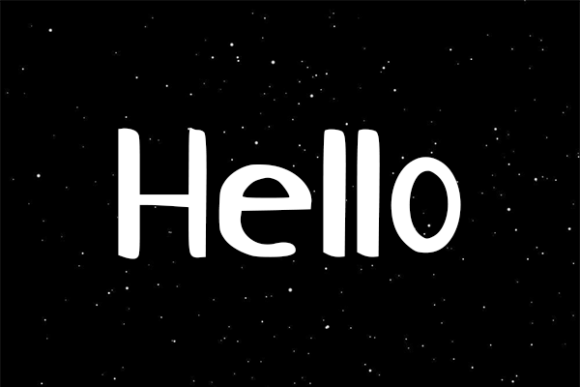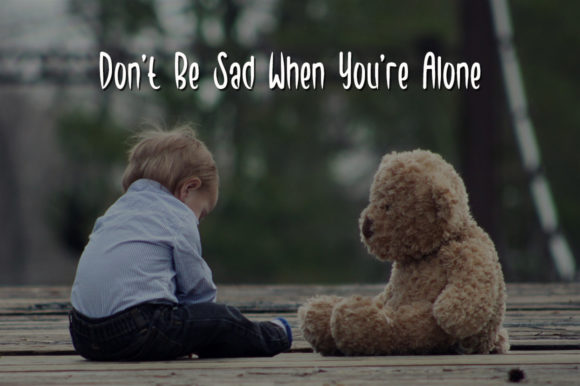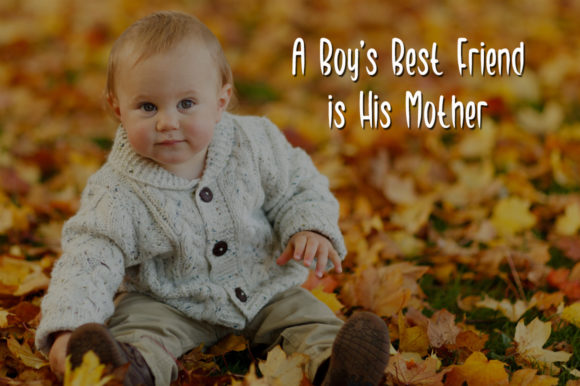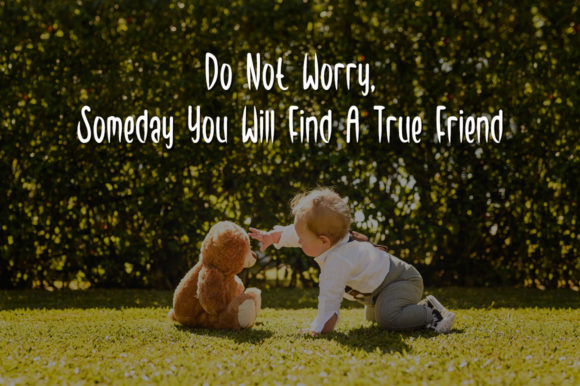
About Baby Boy Font
Baby Boy is a great handwritten font, carefully handcrafted to become a true favorite. Its casual charm makes it appear wonderfully down-to-earth, readable and, ultimately, incredibly versatile. Baby Boy will look outstanding in any context, whether it’s being used on busy backgrounds or as a standalone headline!